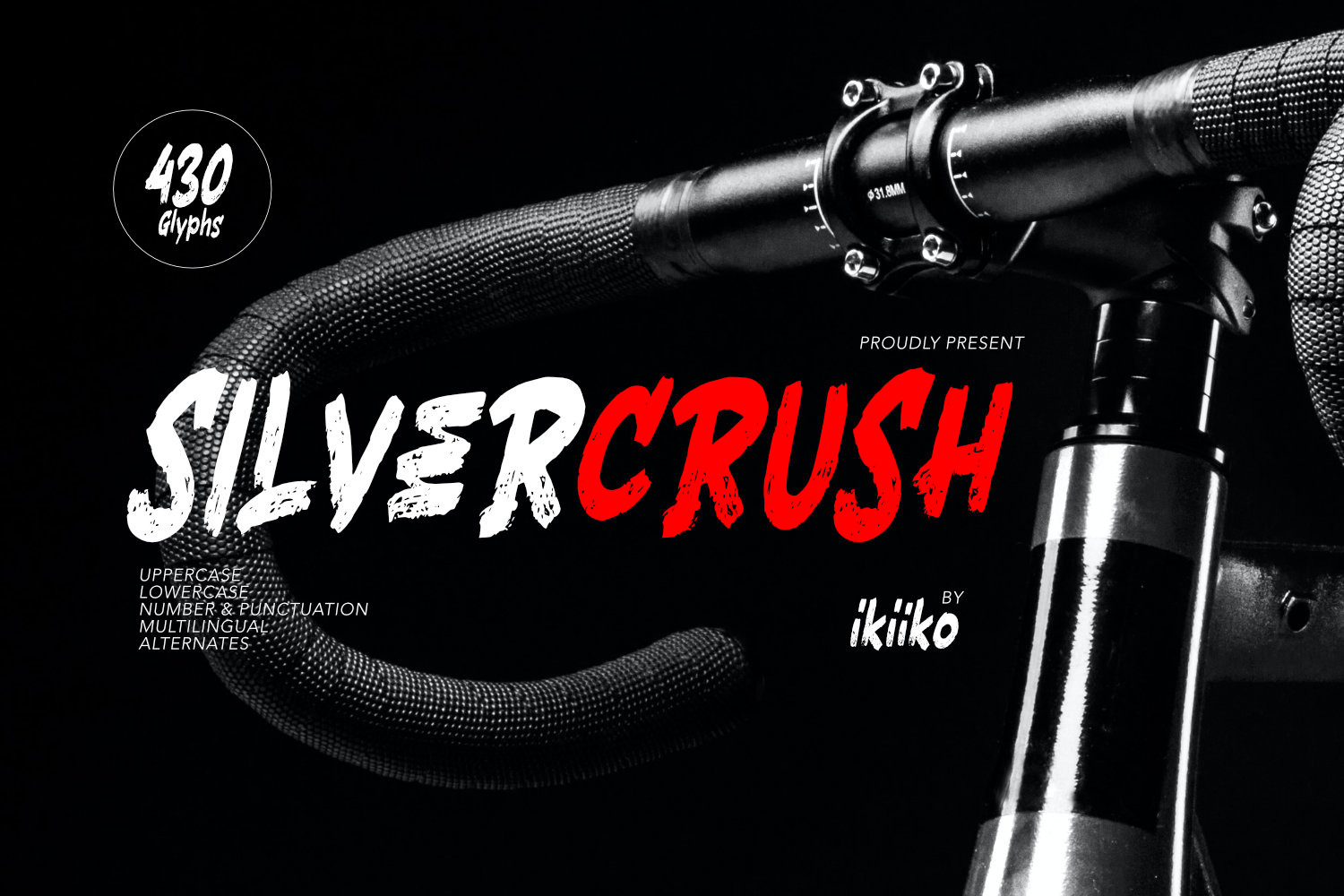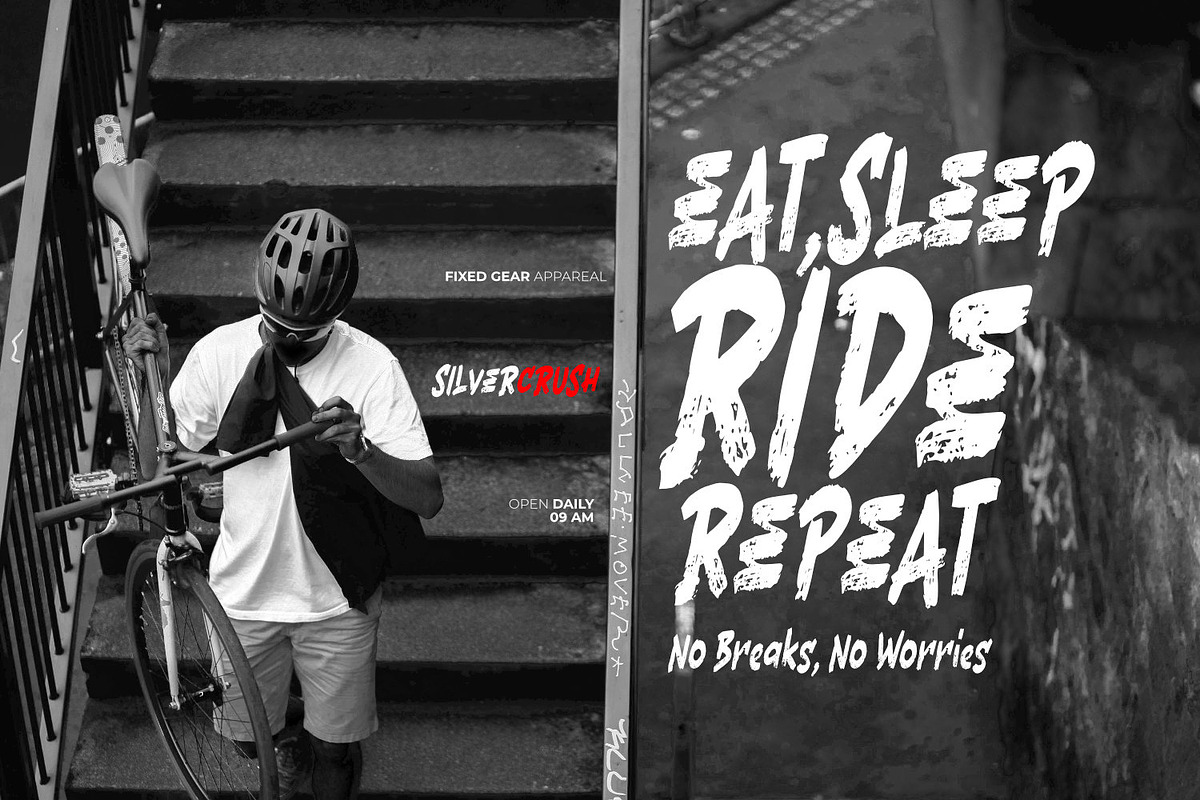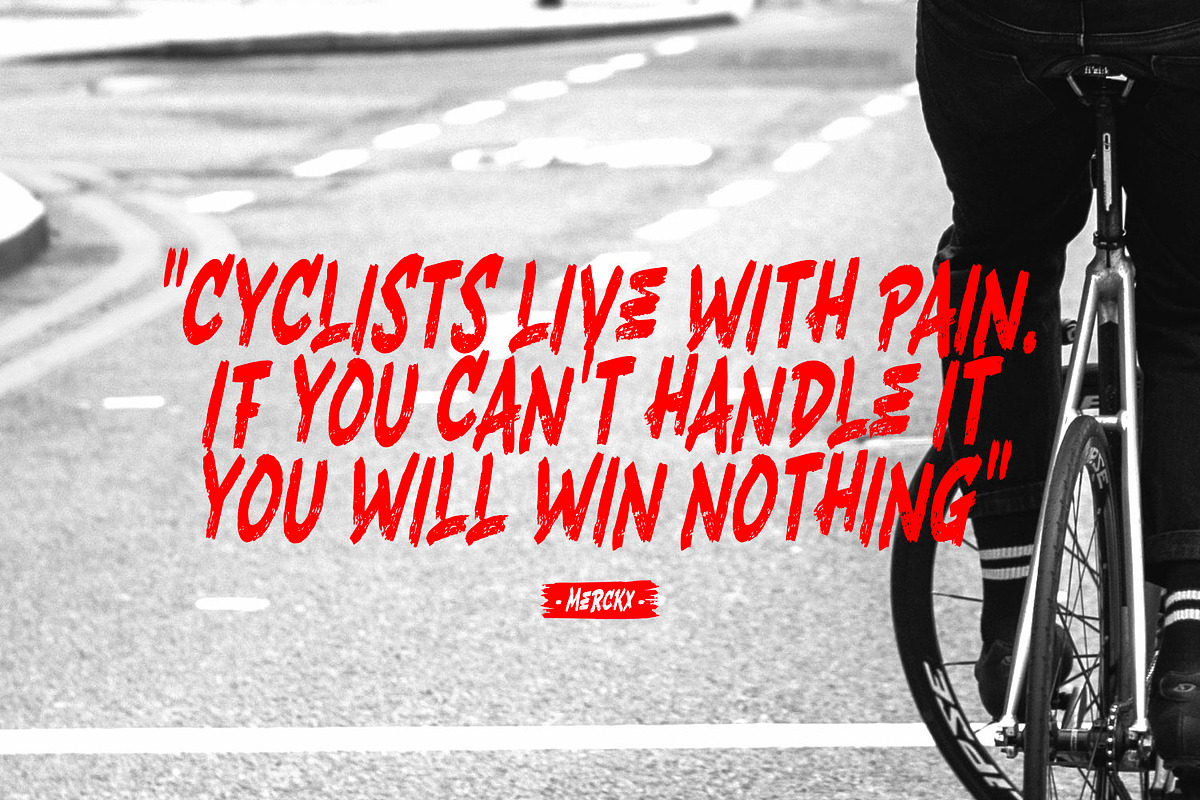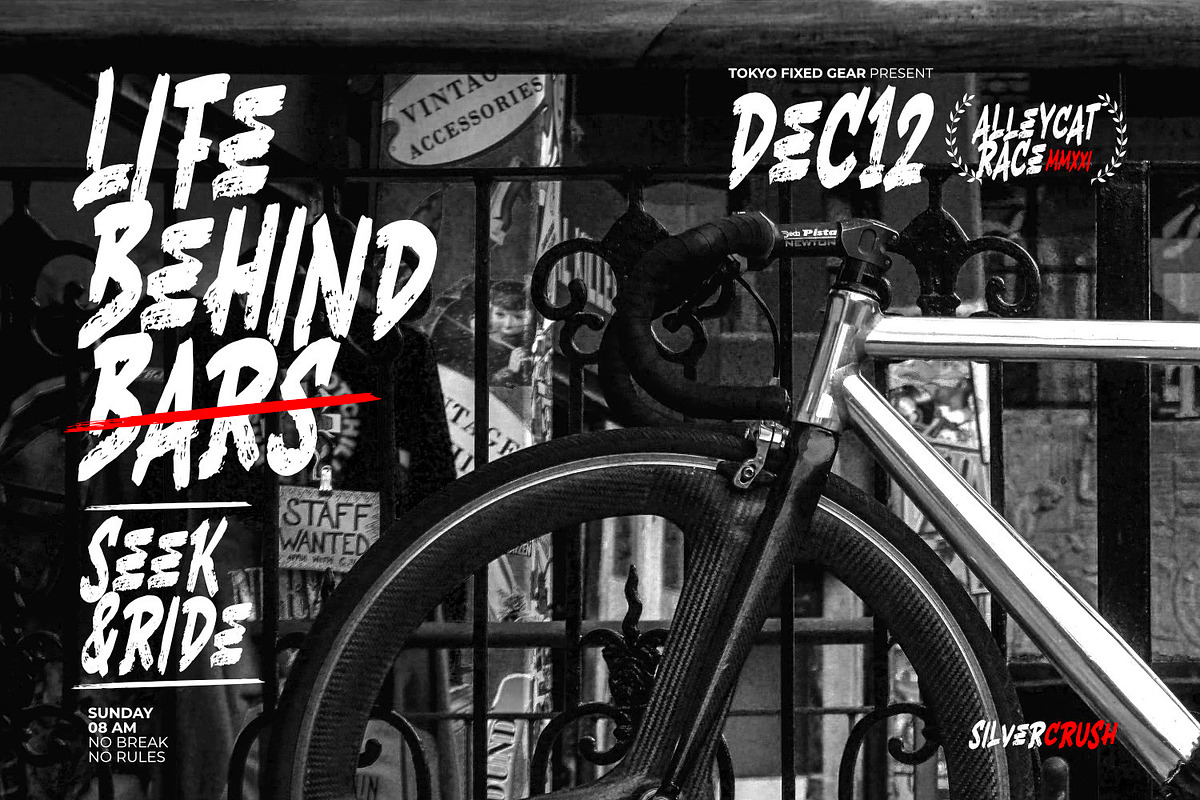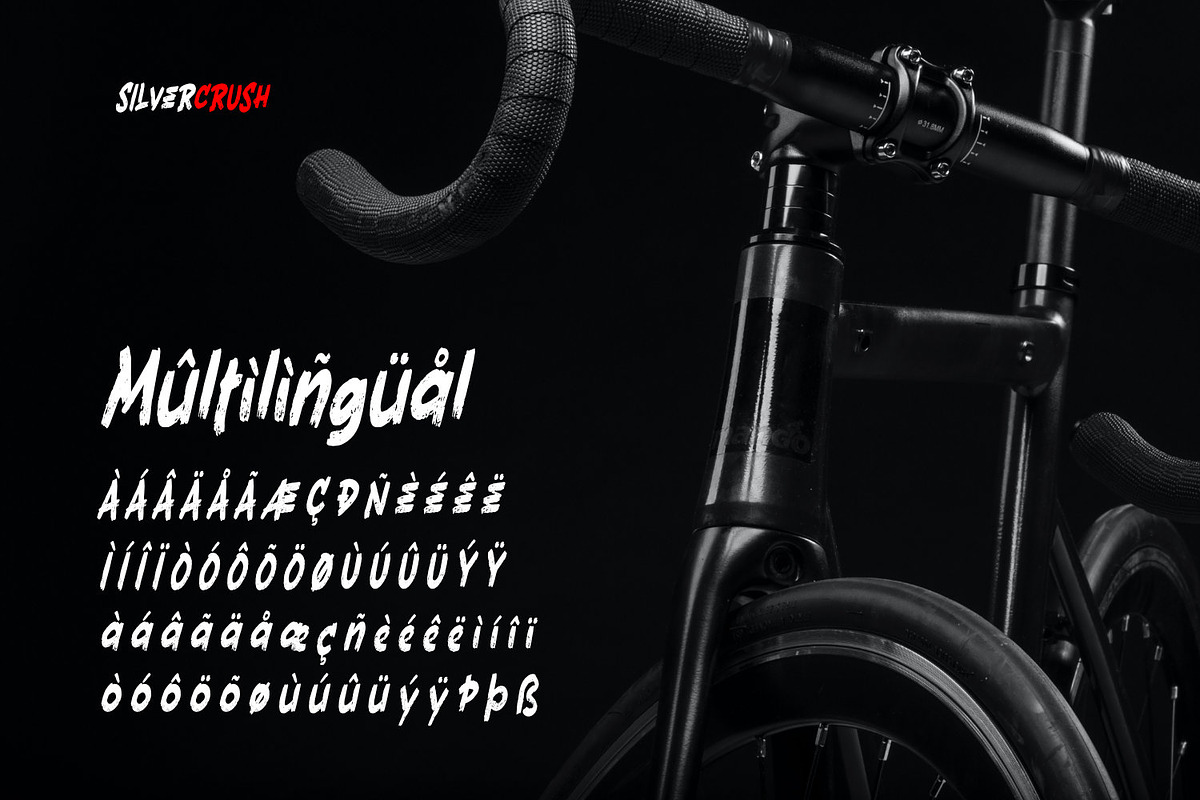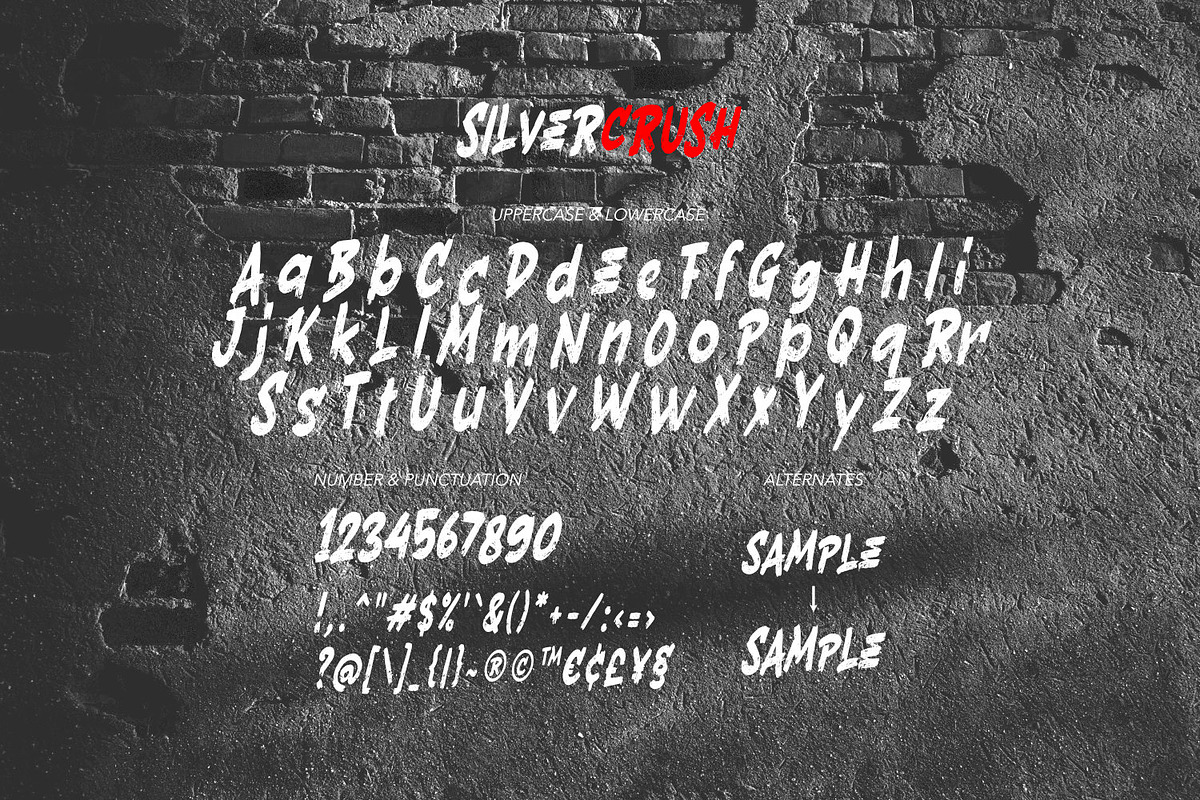
SILVERCRUSH Typeface
Introducing SILVERCRUSH Typeface, created by ikiiko.
A rough letters with expressive strokes and have a strong character for street art typeface. Silvercrush typeface is perfect for an poster event, urban brand, hipster magazine, fashion stuff, quotes, and all the design elements that require a street vibes.
- Number & Punctuation
- Bonus Alternates